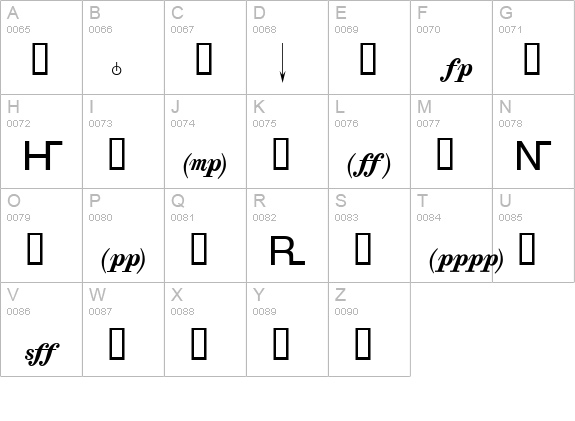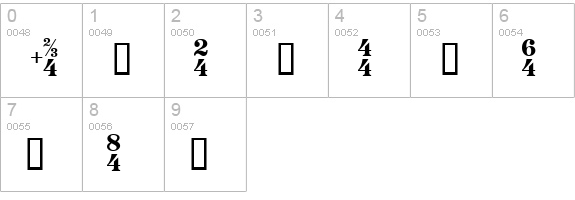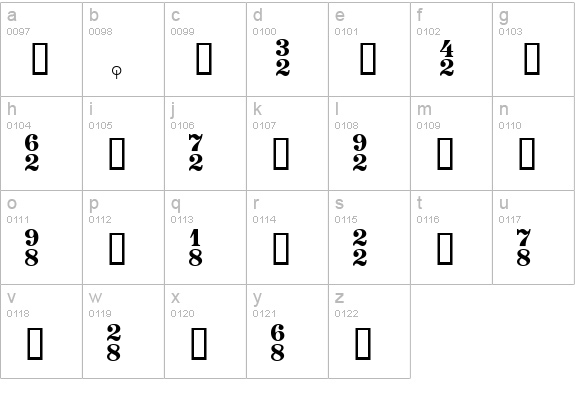
Thesis Font Font Details
Thesis Font is a beautifully crafted typeface that effortlessly combines elegance and simplicity. With its clean lines and balanced proportions, this font exudes a sense of modern sophistication, making it the perfect choice for a wide range of design projects. What sets Thesis Font apart is not just its aesthetic appeal, but also its accessibility. This font is available for free, allowing designers and enthusiasts alike to incorporate its timeless charm into their creations without any cost. Whether you're working on a professional project or simply want to add a touch of class to your personal designs, Thesis Font offers a versatile solution that is both visually pleasing and budget-friendly. To download the Thesis Font, you can visit FontsMarket.com, where it is freely available for anyone to access. FontsMarket.com is a trusted source for high-quality fonts, offering a vast collection of typefaces for every design need. By providing Thesis Font as a free download, FontsMarket.com ensures that creativity knows no boundaries and that designers can freely explore their ideas and bring them to life with this exceptional font. So, if you're in search of a font that embodies elegance, simplicity, and accessibility, look no further than Thesis Font. With its free availability and stunning design, it is the perfect addition to any project, allowing you to make a lasting impression with every word, headline, or paragraph. Download Thesis Font from FontsMarket.com today and experience the beauty and versatility that this font has to offer.